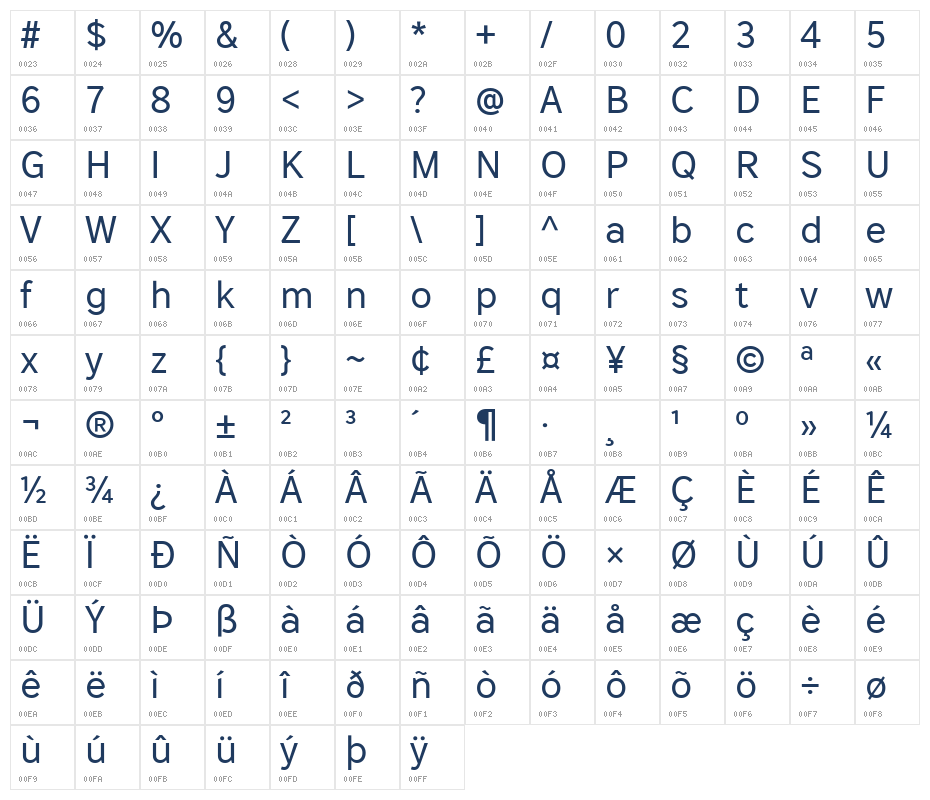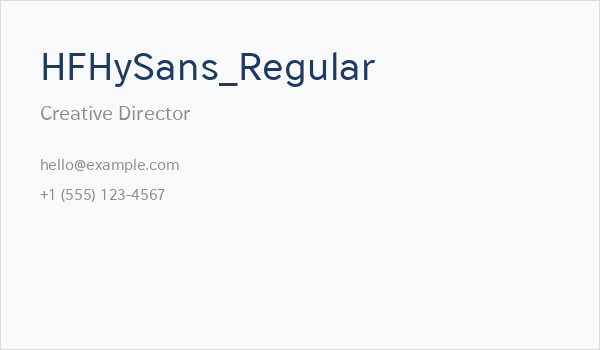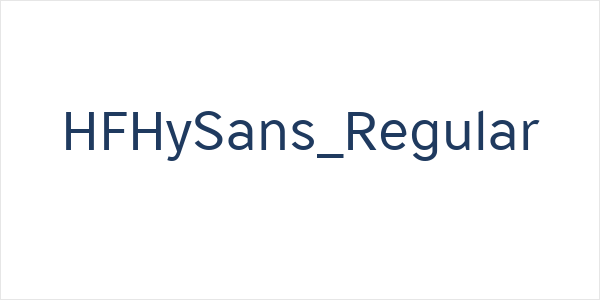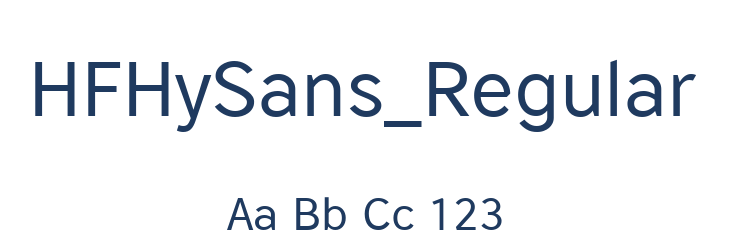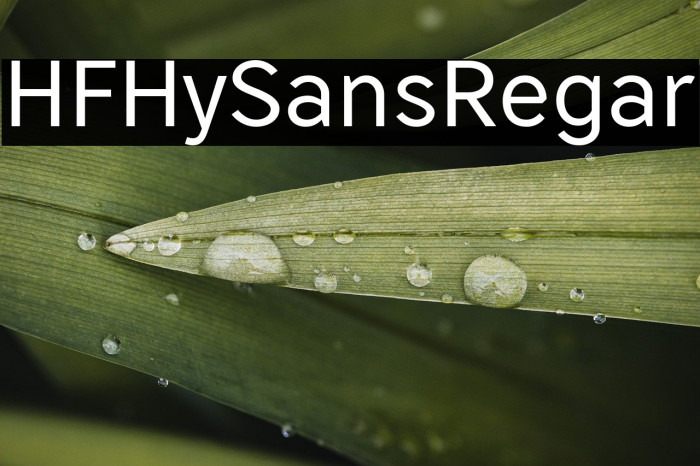
HFHySans_Regular Font
HFHySans_Regular Description
A clean, modern sans-serif font with uniform stroke width and rounded edges, suitable for digital and print use.
| Overall Style | Modern, Minimalist |
| Use Case | Headlines, Body text, Digital interfaces |